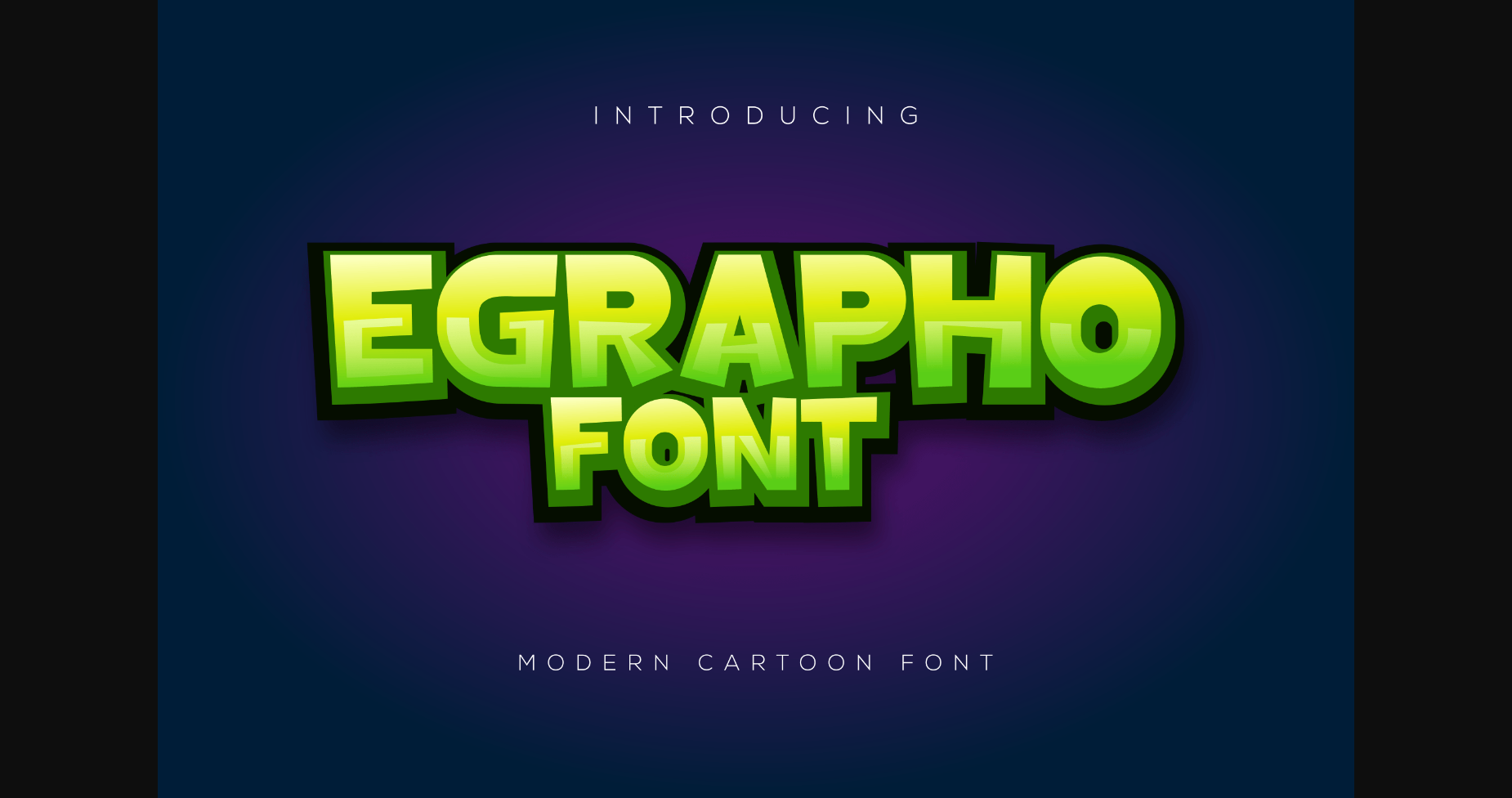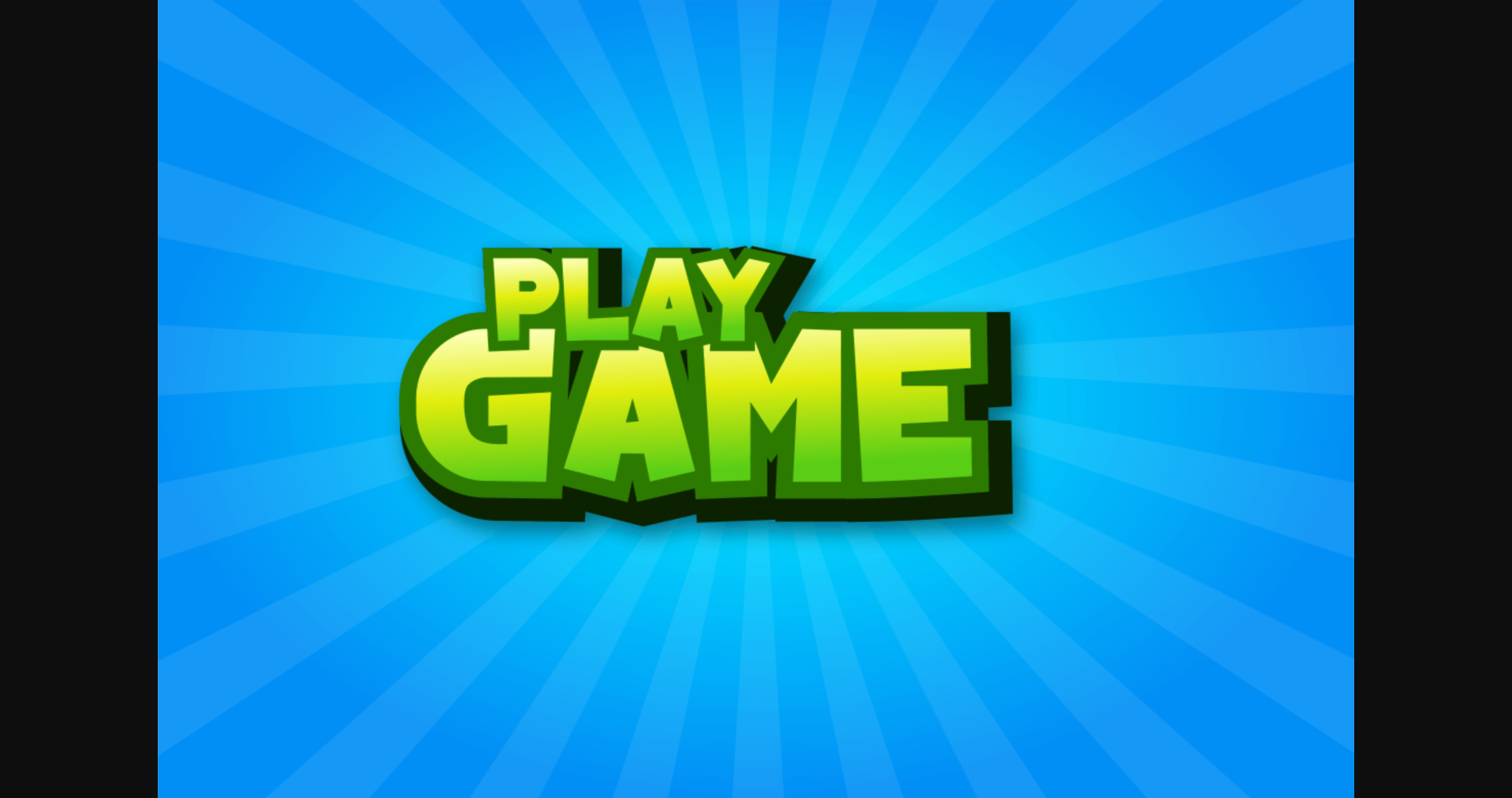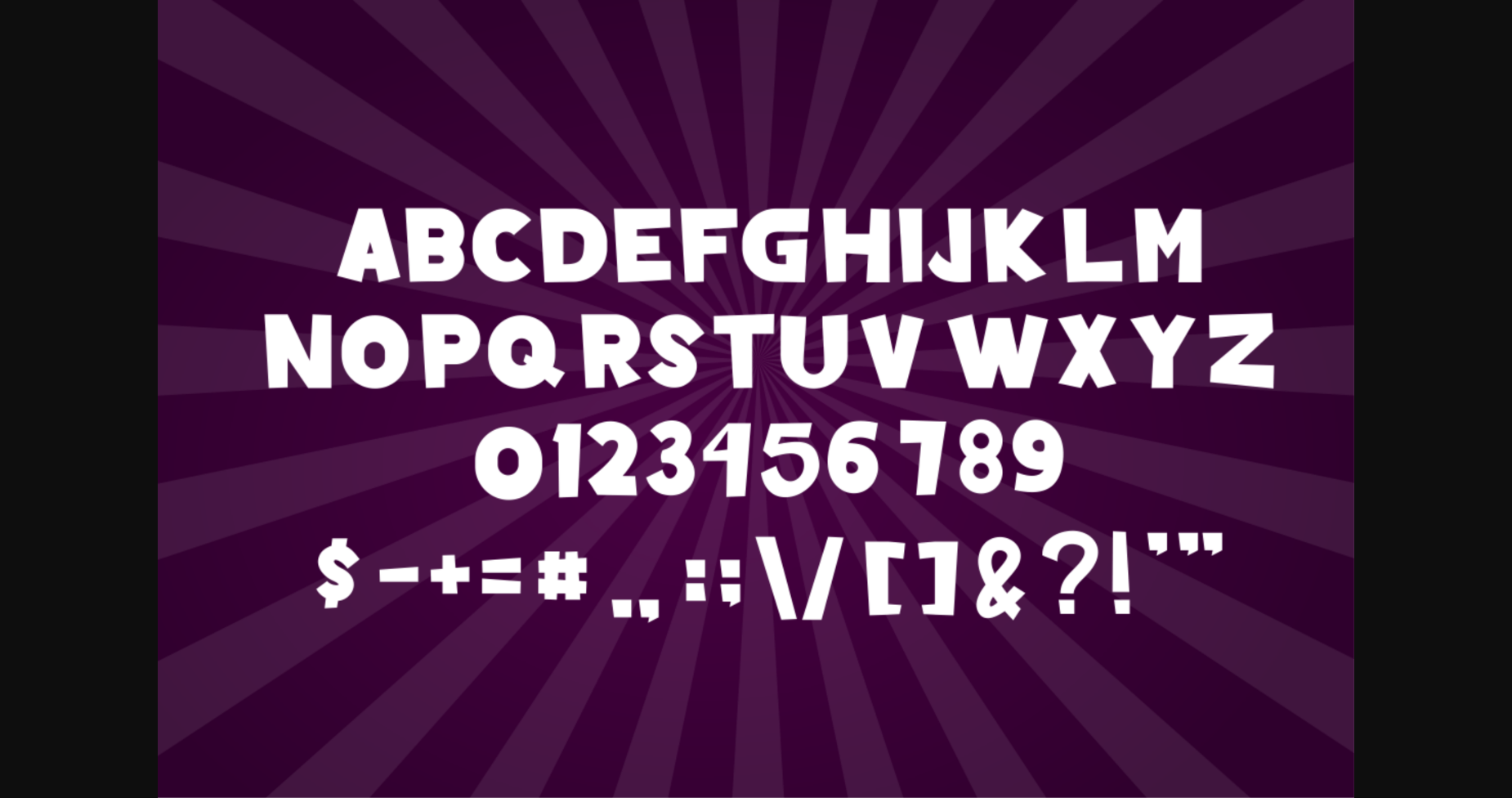
Egrapho is a modern, bold, and authentic sans serif font suitable for any branding project like logo, t-shirt printing, export, and many more. It will look outstanding in a wide range of contexts.